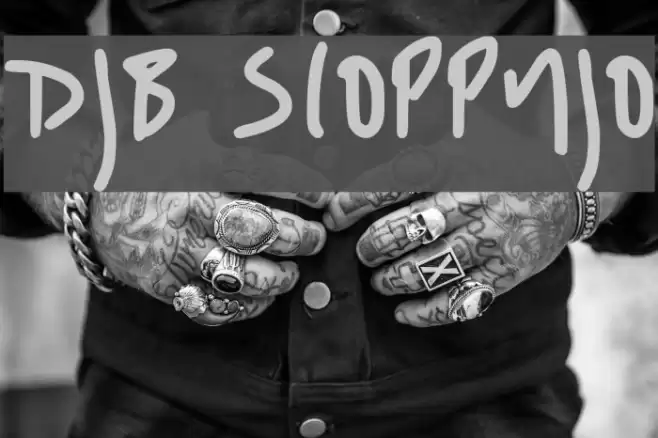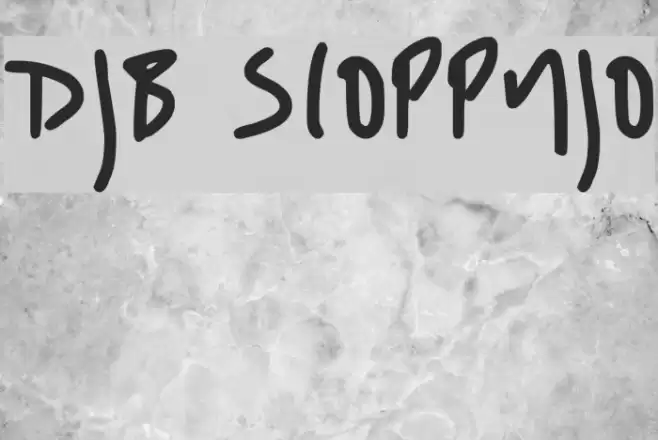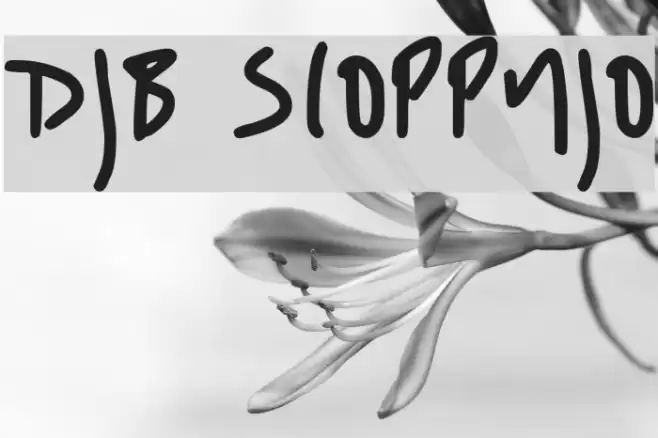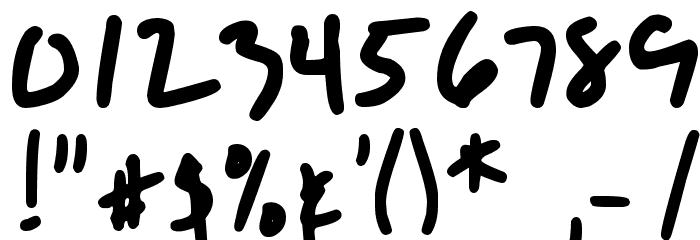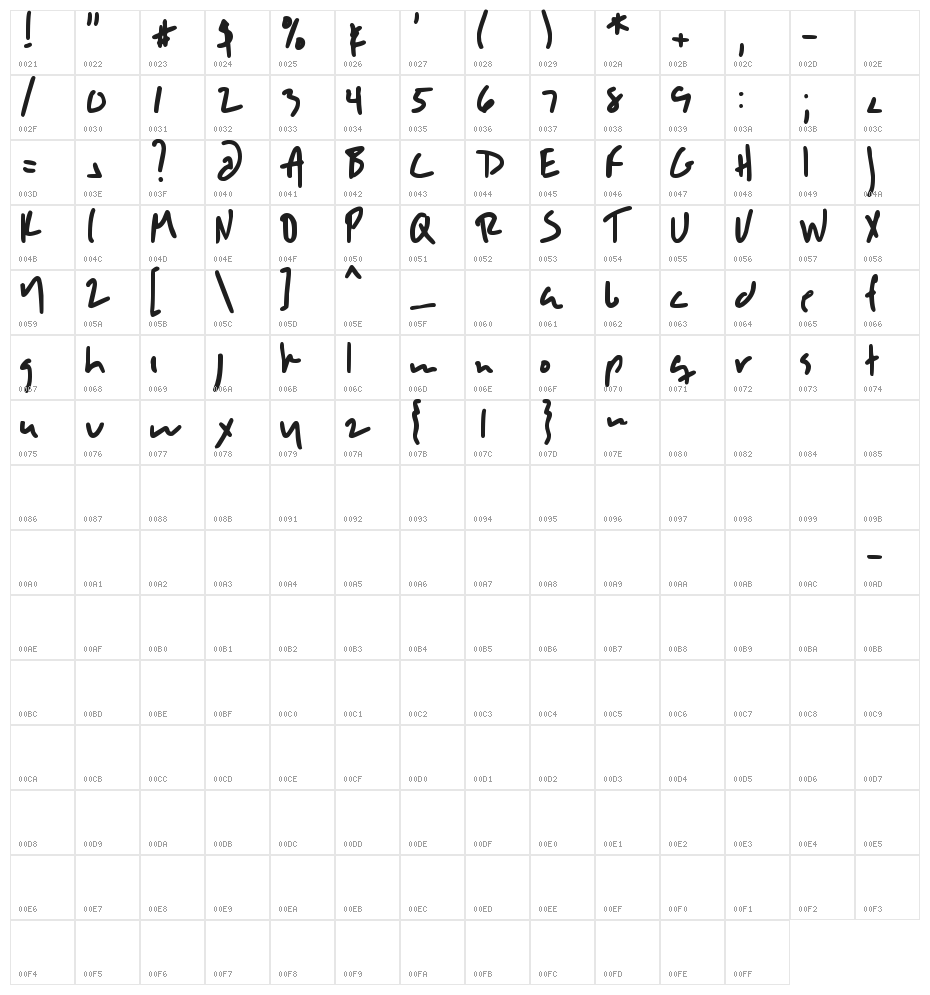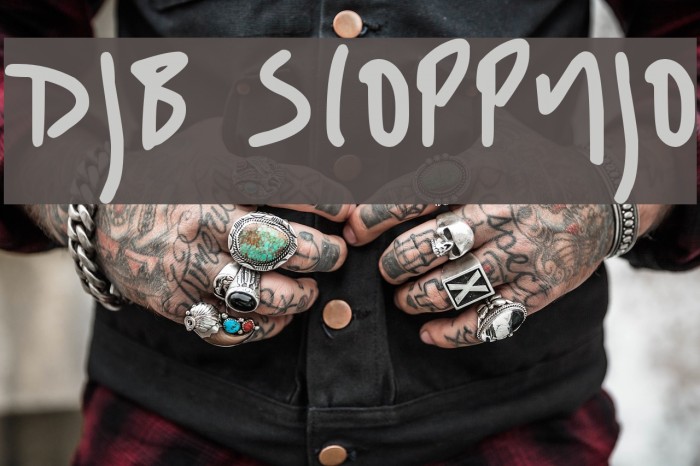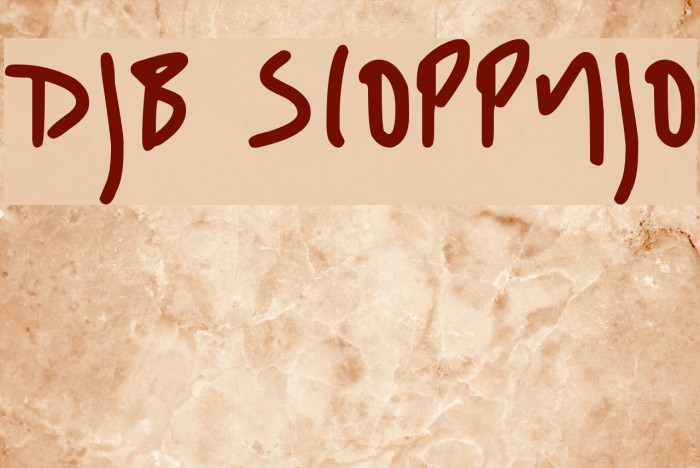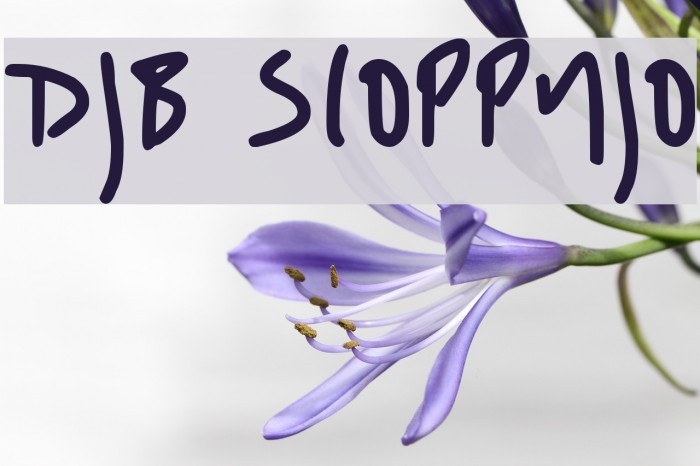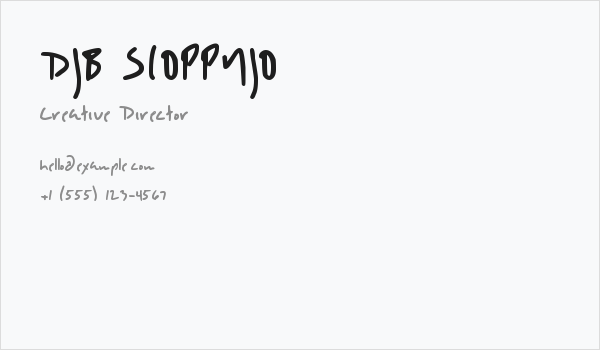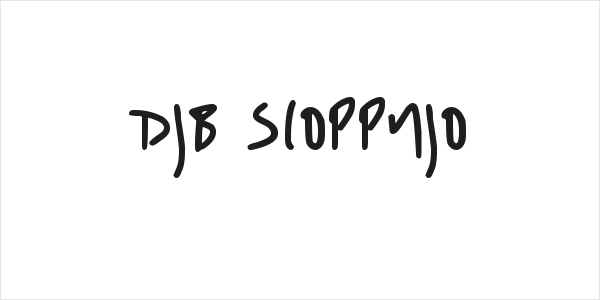
DJB SLOPPYJO Font
DJB SLOPPYJO Description
This font exudes a playful and casual handwritten style, characterized by its bold and slightly irregular strokes. The letters have a dynamic flow, with varying heights and widths that give it a lively and spontaneous appearance. The uppercase letters are bold and prominent, while the lowercase letters maintain a consistent yet informal look. Numbers and special characters follow the same energetic style, making the font versatile for creative projects. The overall impression is one of friendliness and approachability, perfect for designs that aim to convey a personal touch.
A bold, playful handwritten font with dynamic and irregular strokes from Handwritten fonts.
- Proposed Projects: Ideal for greeting cards, children's books, playful branding, and casual invitations.
- Overall Style: Casual, Playful
- Use Case: Logos, Headlines, Informal Text